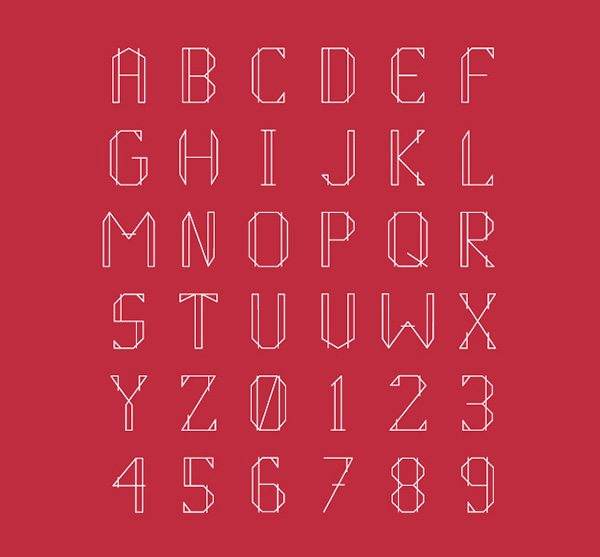
Athena Font
Typeface created in the Introduction to Typeface Design classes at SCAD – Savannah College of Art and Design. Designed by Alcir Heidemann.